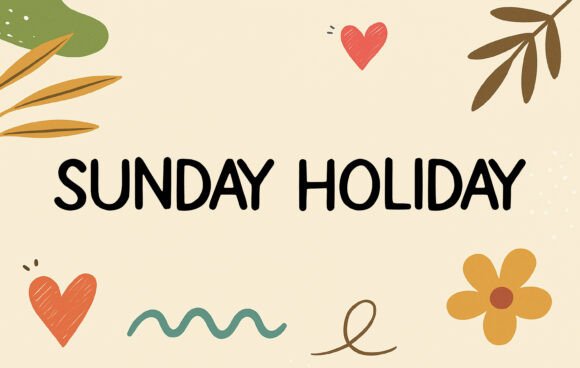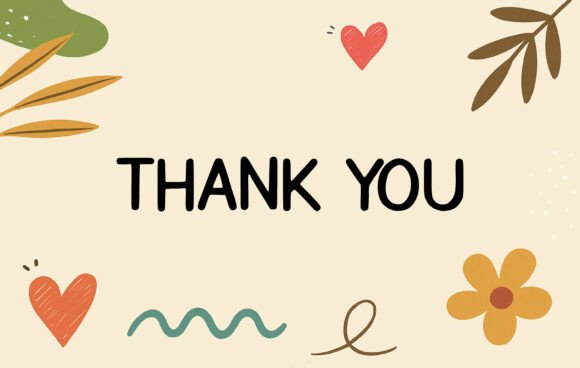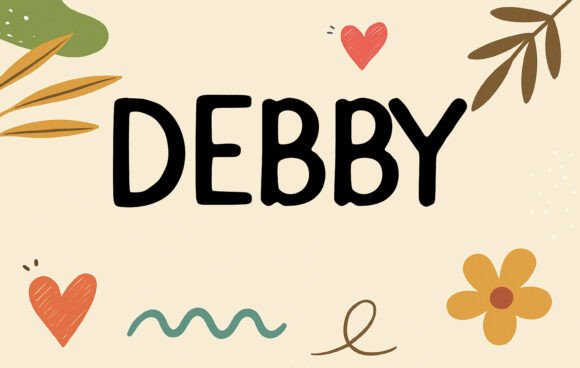
Discover the Versatility of Debby Font: Elevate Your Designs to New Heights
In the world of typography, a font can make or break a design. It’s the foundation upon which your creative ideas are built, and when chosen wisely, it can elevate your project to new heights. This is where Debby Font comes into play – a versatile and legible typeface designed to be a true favorite among designers and crafters. With its exceptional readability and aesthetic appeal, Debby Font is poised to become the go-to choice for a wide range of design applications.
Legibility and Versatility: The Hallmarks of Debby Font
Debby Font is crafted with the goal of being easily readable, making it an excellent choice for both title and body text. Its clear and distinct letterforms ensure that your message is conveyed with clarity, whether it’s used in a magazine headline, a t-shirt design, or a social media post. This legibility, combined with its visually appealing design, makes Debby Font a versatile tool in the hands of designers.
Endless Design Possibilities with Debby Font
The true power of Debby Font lies in its adaptability. It’s a font that can seamlessly transition across various design projects, making it an invaluable asset for designers and crafters. Here are some of the many areas where Debby Font shines:
- Magazine Headlines: Grab the attention of your readers with Debby Font’s bold and captivating presence.
- T-Shirts and Apparel: Create unique and stylish designs that stand out from the crowd.
- Social Media: Enhance your posts and stories with a font that’s both engaging and easy to read.
- Branding: Establish a strong brand identity with Debby Font’s distinctive and professional look.
- Wedding Invitations: Add a touch of elegance and sophistication to your wedding invites.
- Cards and Greeting Cards: Make your cards more personal and heartfelt with Debby Font’s warm and inviting style.
Why Choose Debby Font?
With so many fonts available, what sets Debby Font apart? The answer lies in its unique blend of style, legibility, and versatility. Debby Font is not just a typeface; it’s a design solution that can adapt to your creative needs. Whether you’re working on a commercial project or a personal craft, Debby Font has the potential to elevate your design to the highest level.
Tips for Using Debby Font Effectively
To make the most out of Debby Font, consider the following tips:
- Experiment with Sizes: Debby Font looks great in various sizes, from large headlines to smaller body text.
- Play with Colors: The font’s design allows it to pair well with a wide range of colors, so don’t be afraid to get creative.
- Mix and Match: Combine Debby Font with other typefaces to create a unique and visually appealing design.
Debby Font is more than just a typeface; it’s a creative tool designed to bring your ideas to life. Its legibility, versatility, and aesthetic appeal make it an excellent choice for a multitude of design projects. Whether you’re a professional designer or a crafter working on a personal project, Debby Font has the potential to elevate your work and make it stand out. So why wait? Explore the possibilities with Debby Font today and take your designs to new heights.